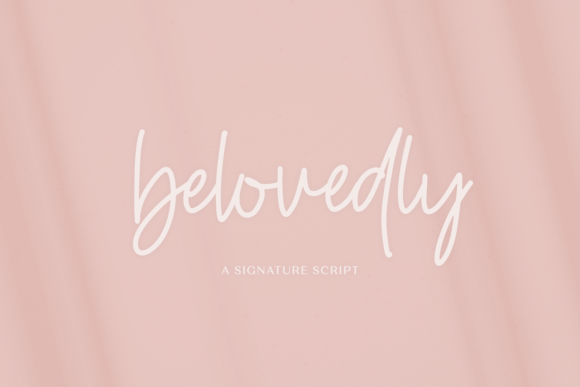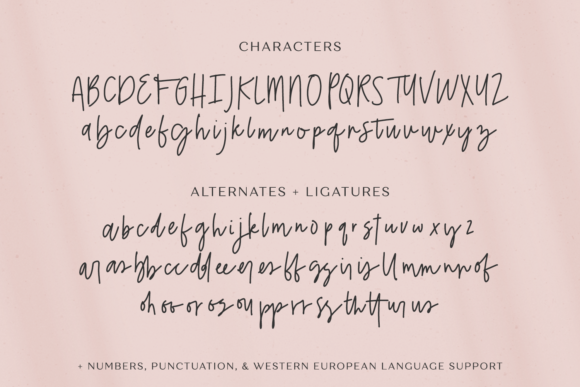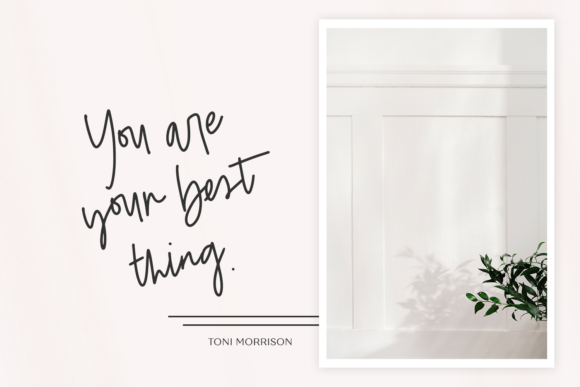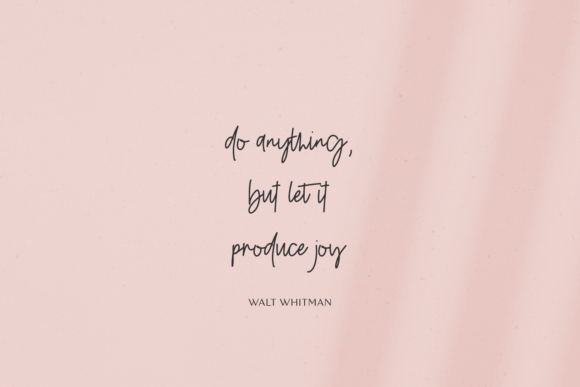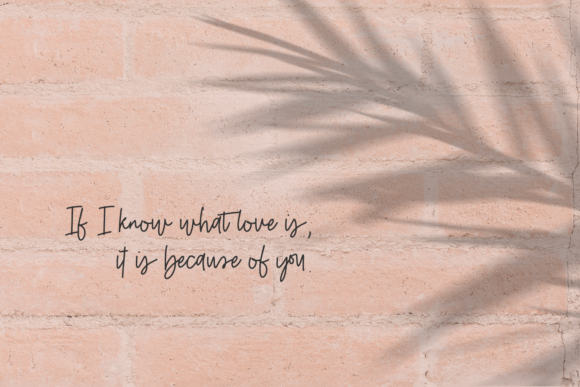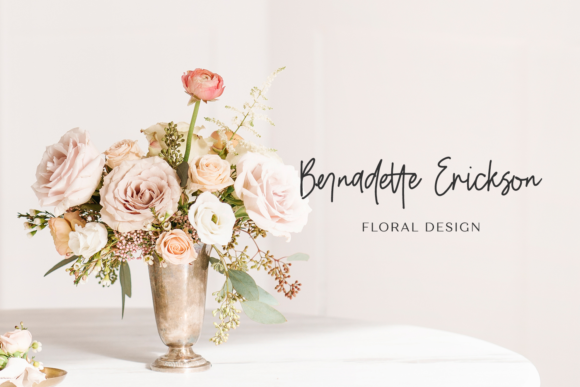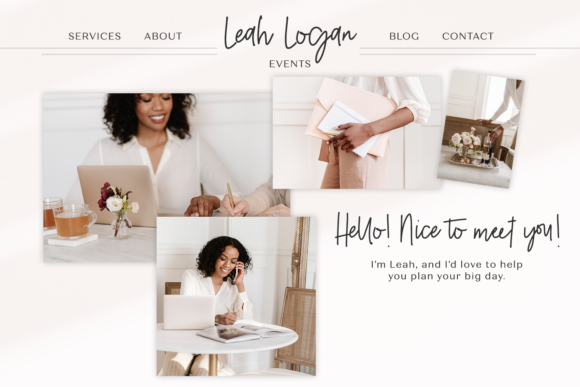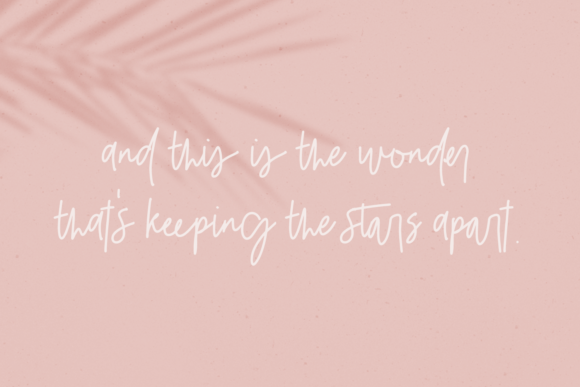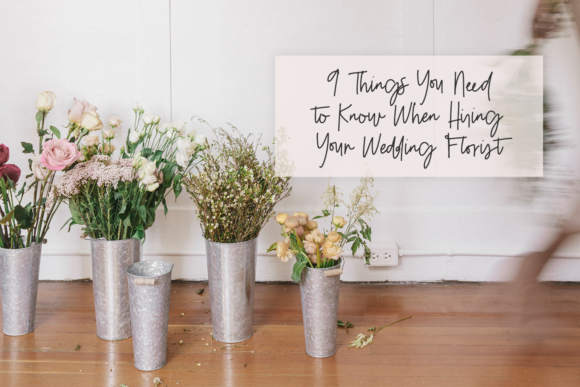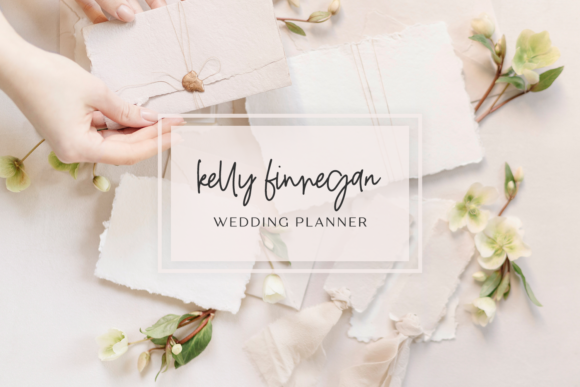
Belovedly Font
About Belovedly Font
Belovedly is a sweet, soft hand-lettered signature script. It features an incredibly classic style, while still keeping a friendly feel. Belovedly is the perfect font for making original and outstanding designs.